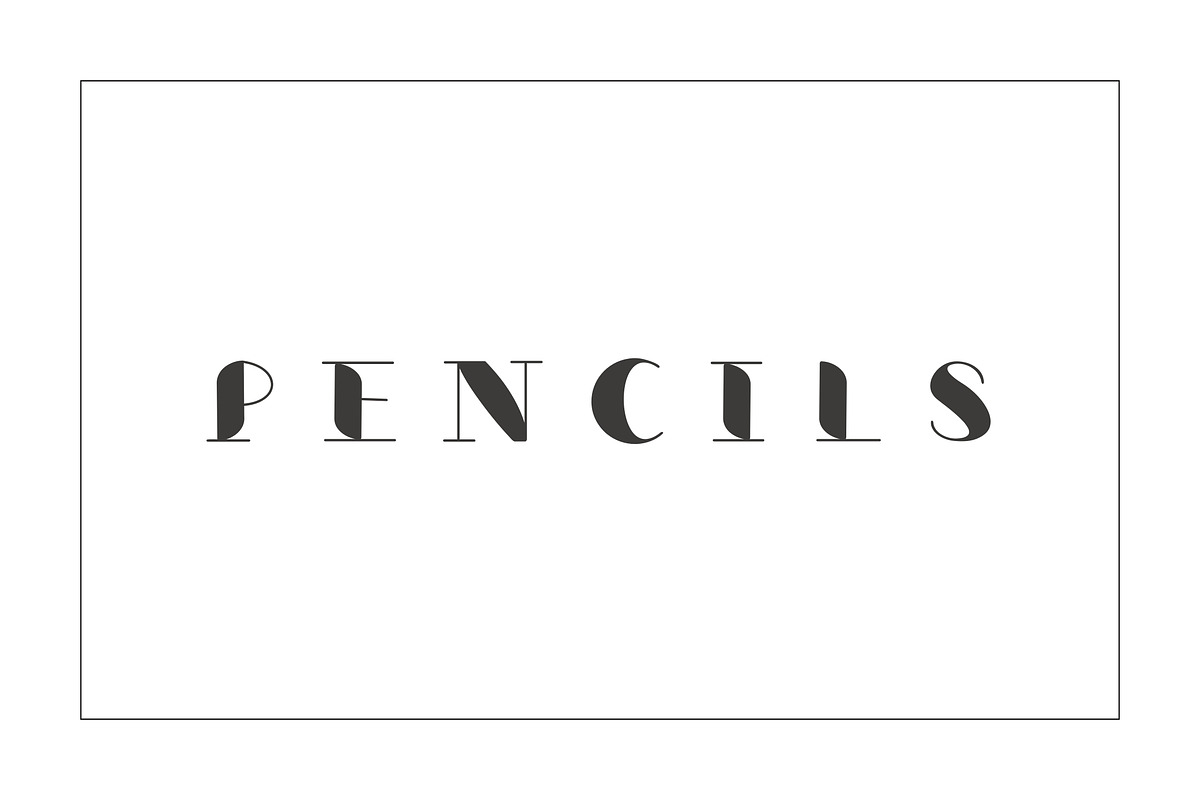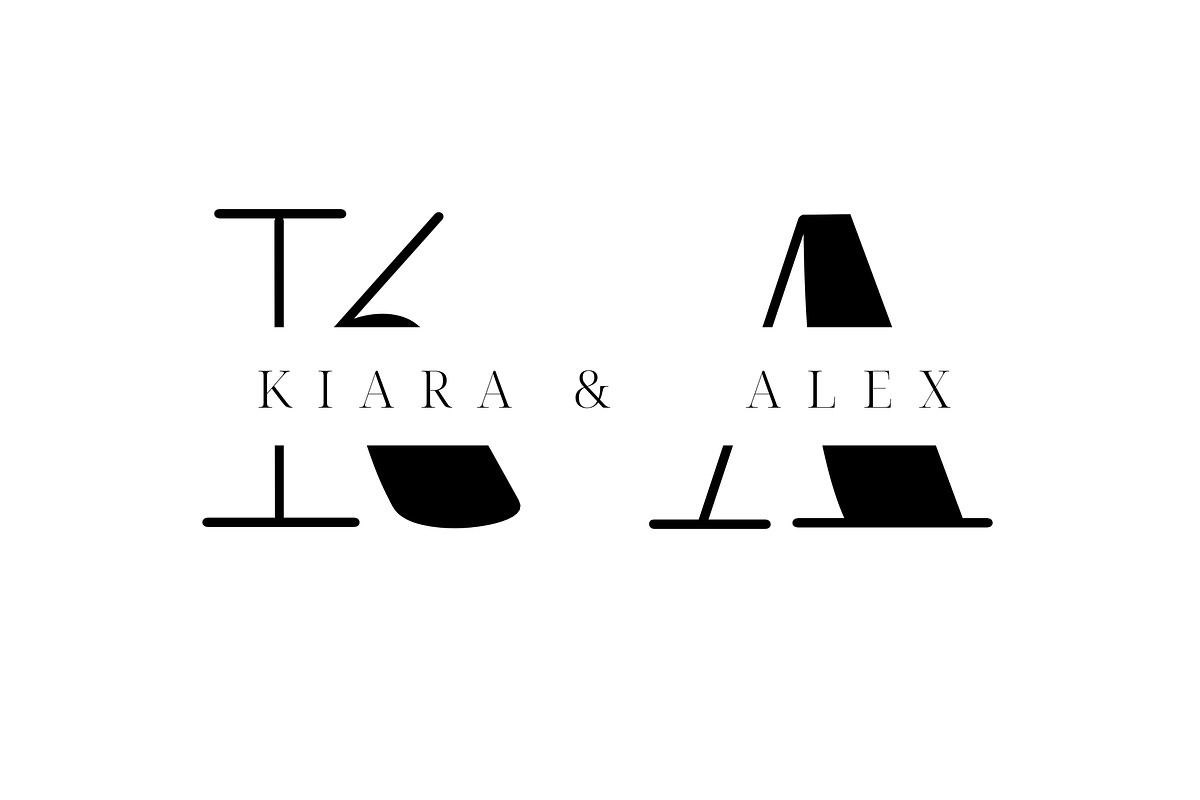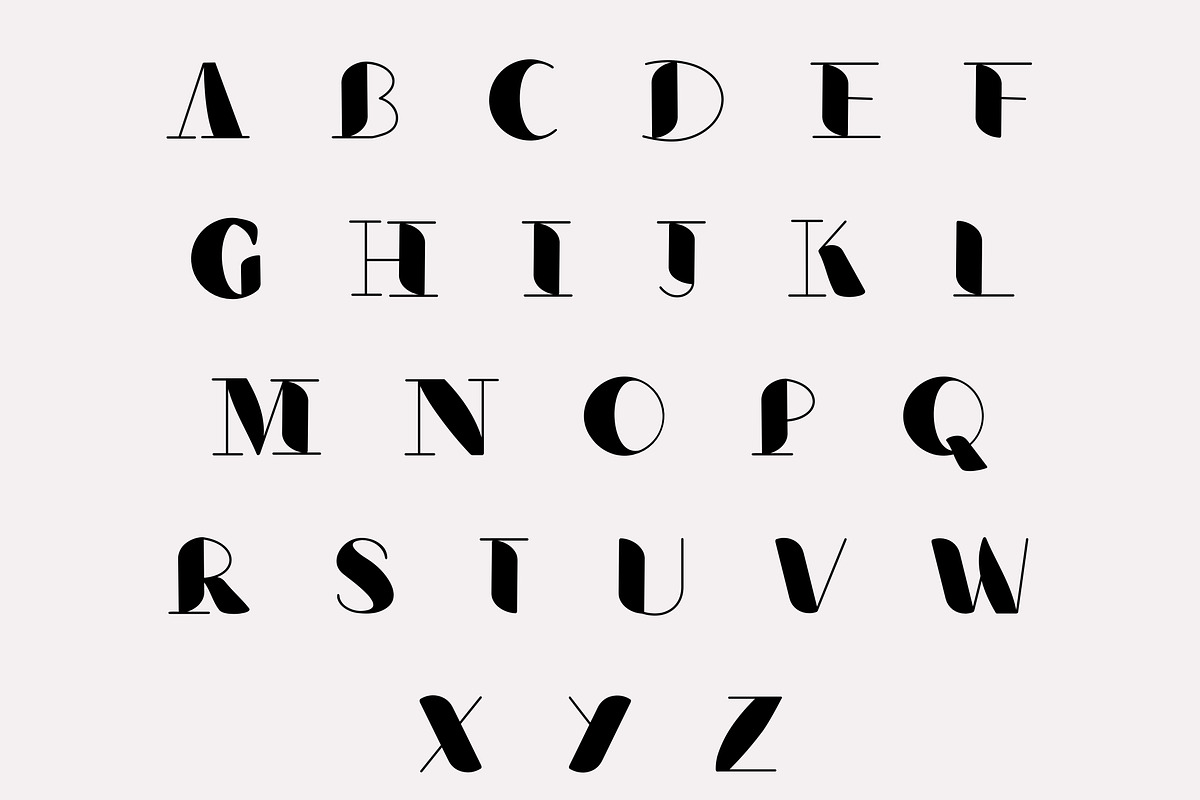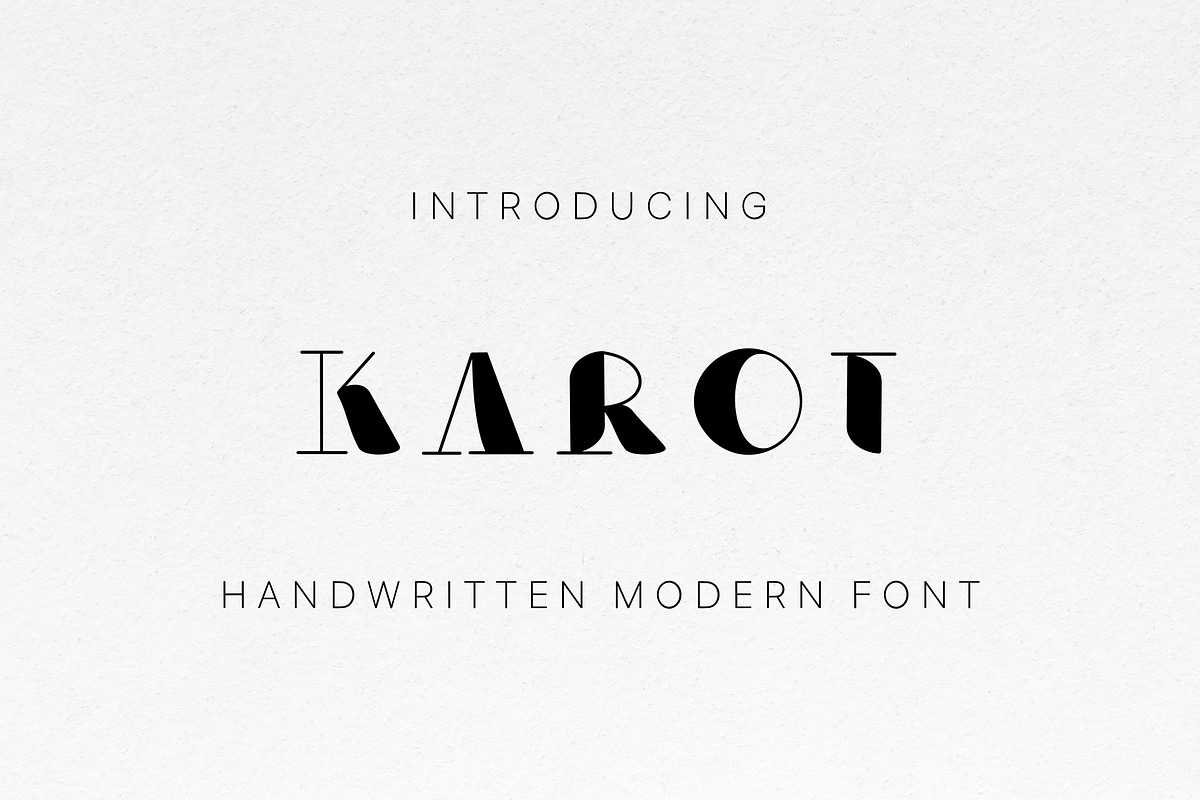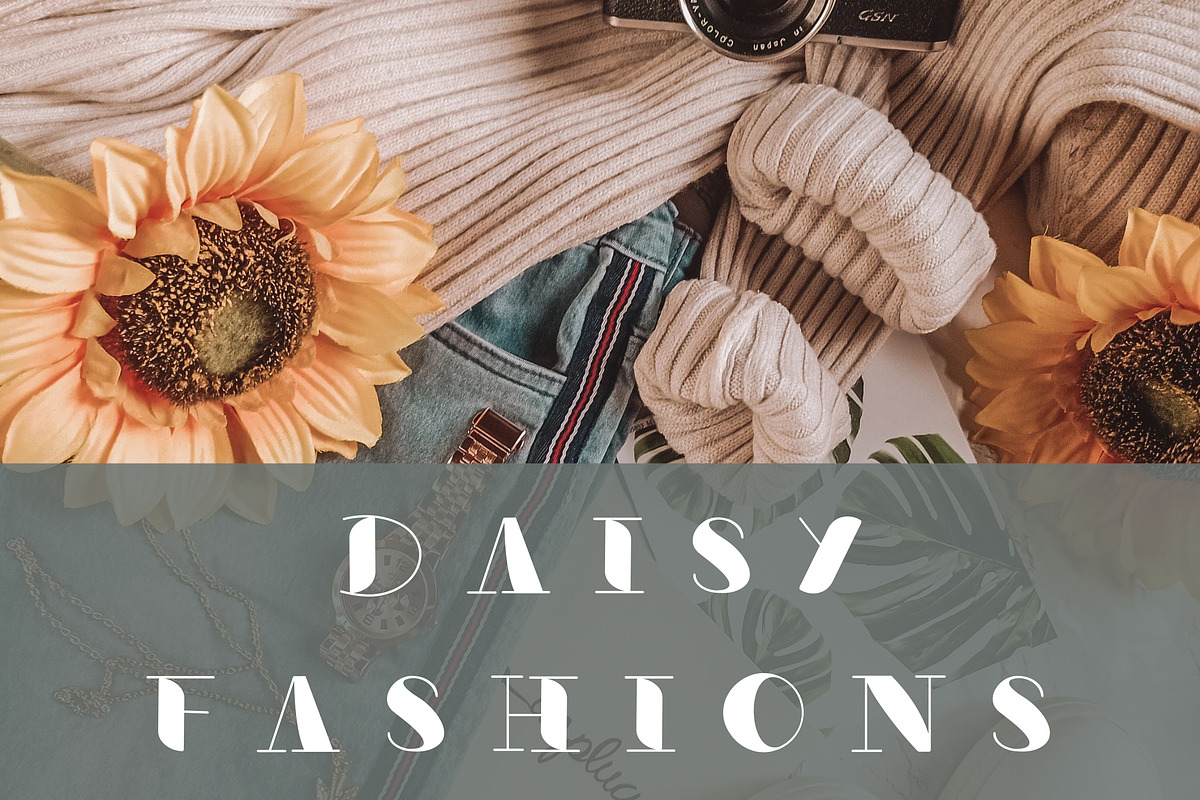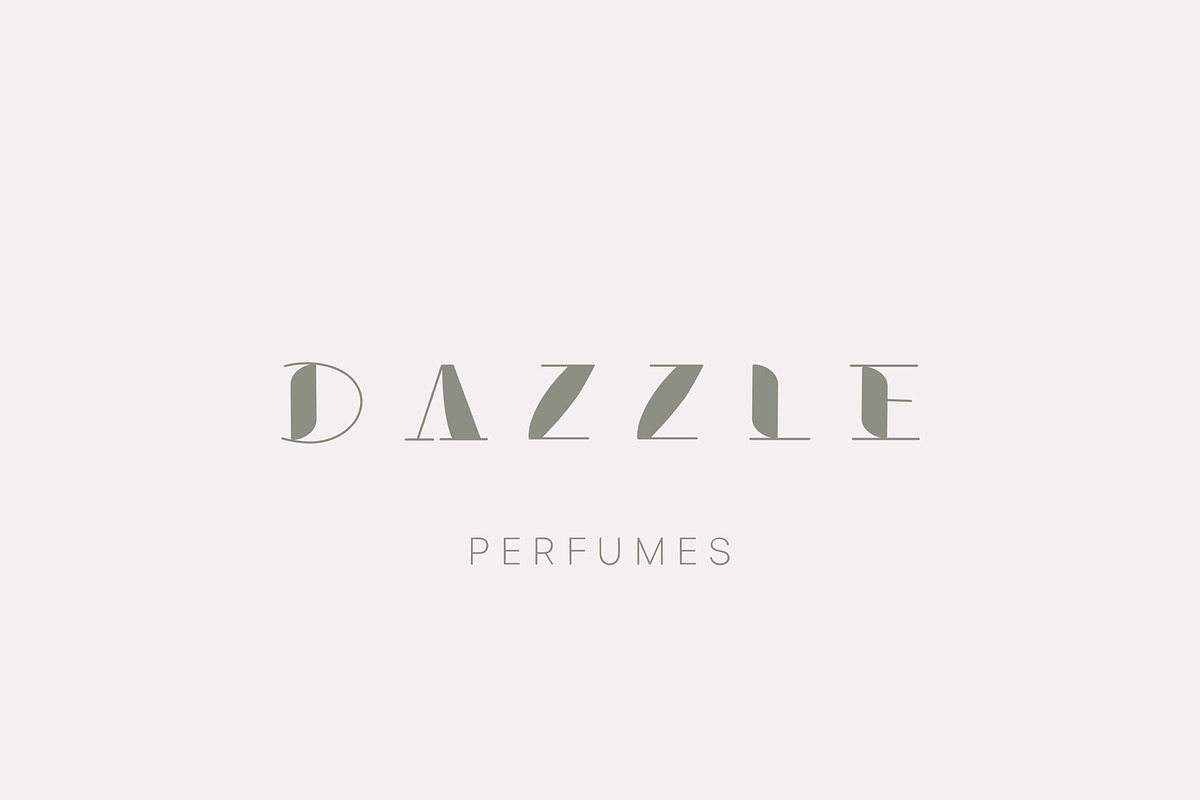
Karot - Modern serif font
This font is perfect for advertising, headings, blogs, logos, branding and more!
This font would pair well with a sans or script style & also it’s speak loud it’s own.
Features: Uppercase Font Numbers & punctuation marks.
Lowercase and symbols are not included.